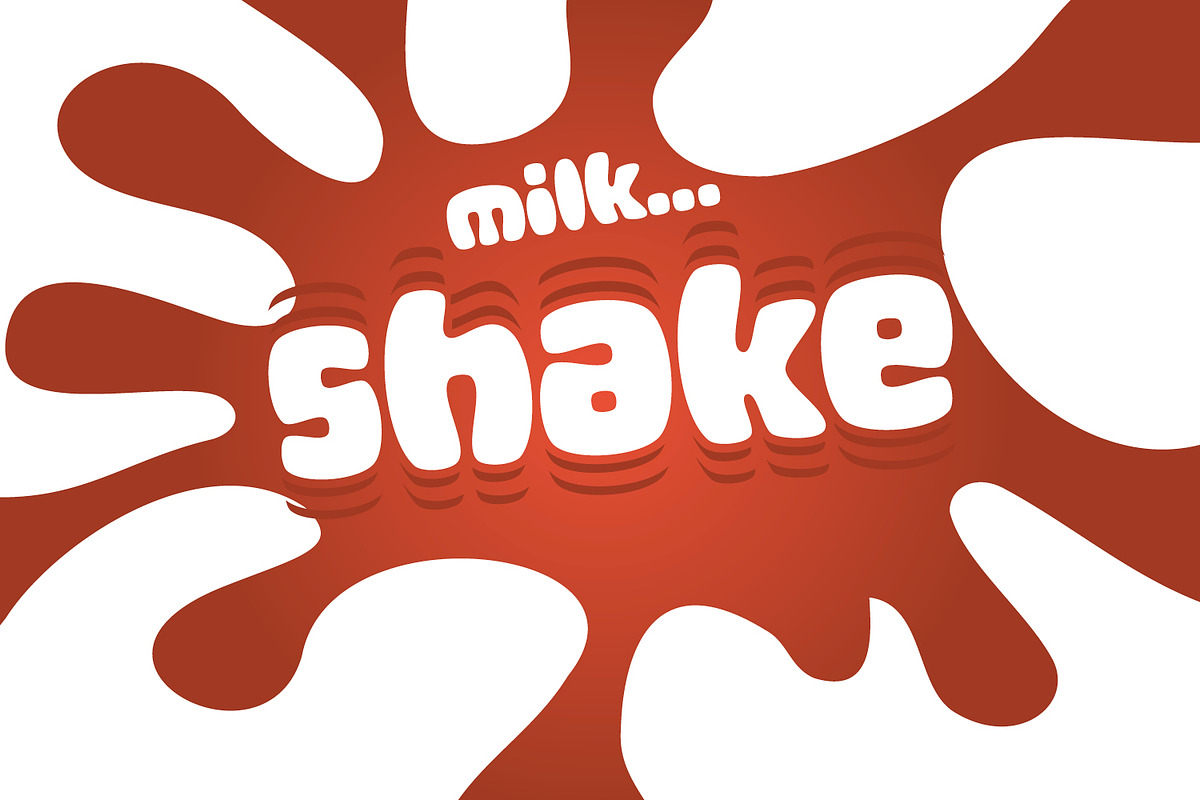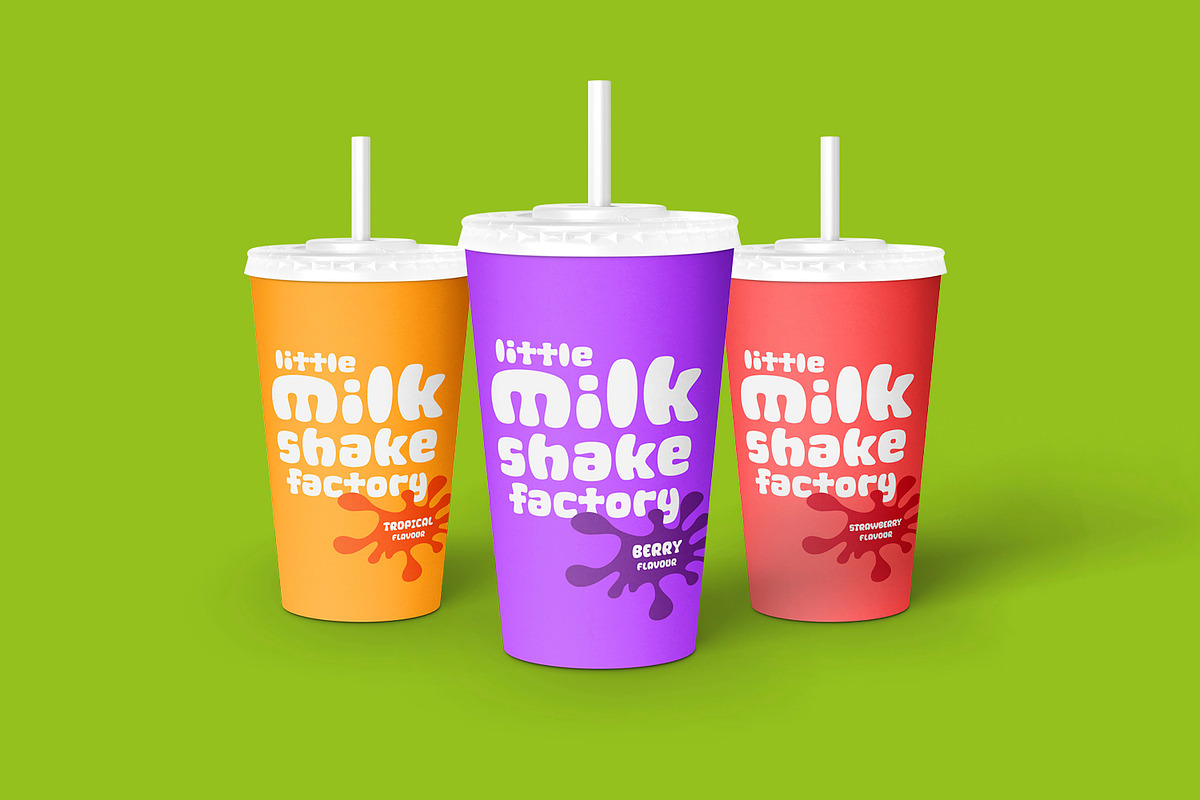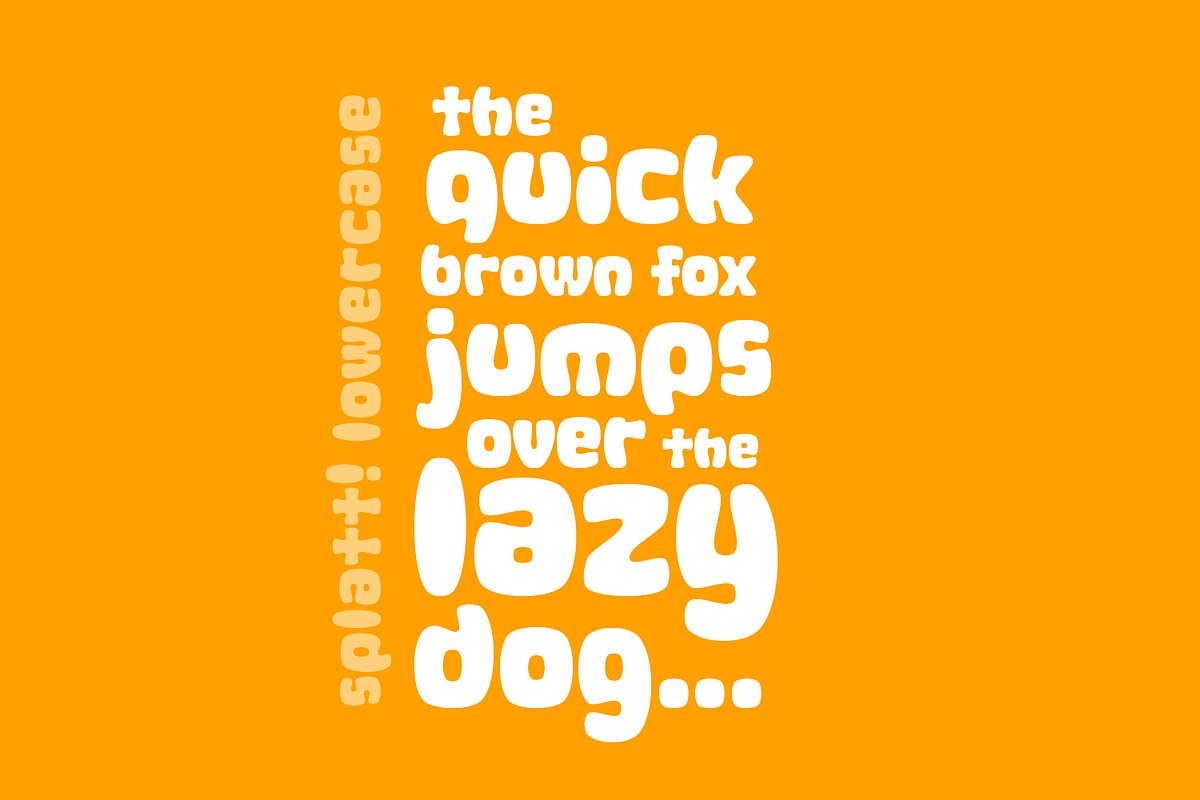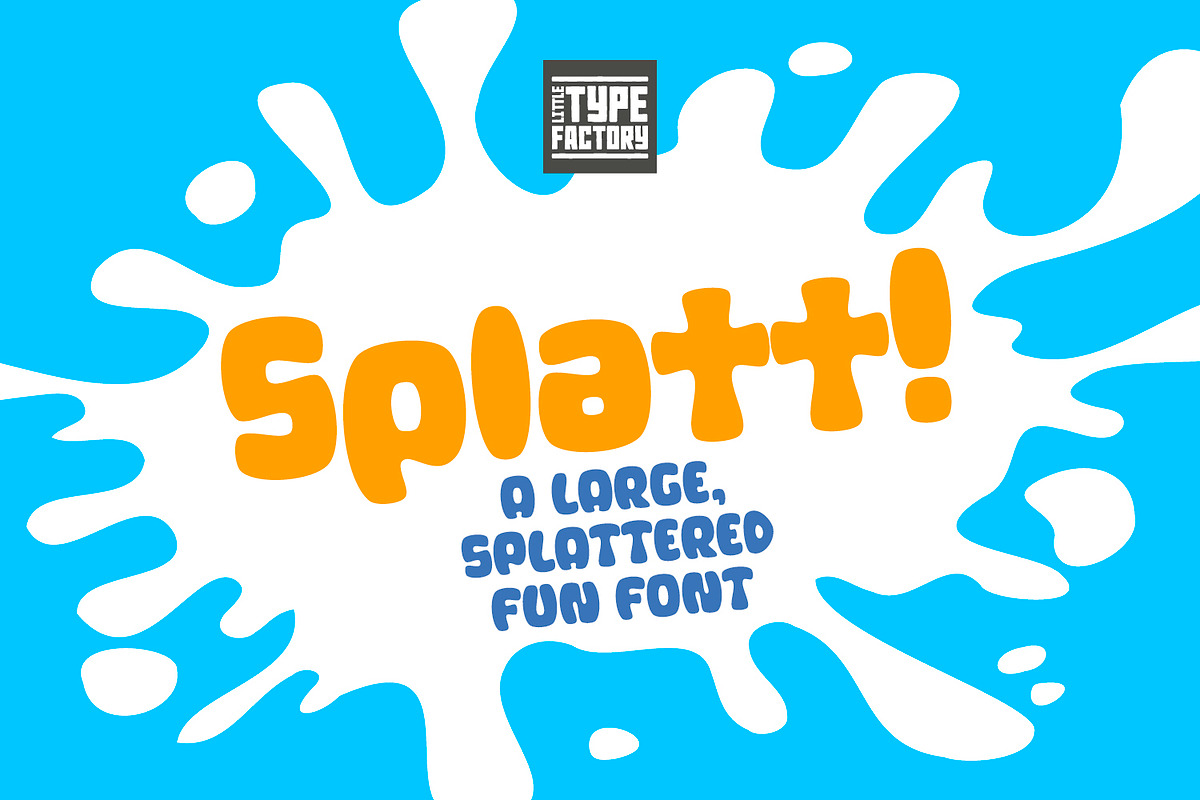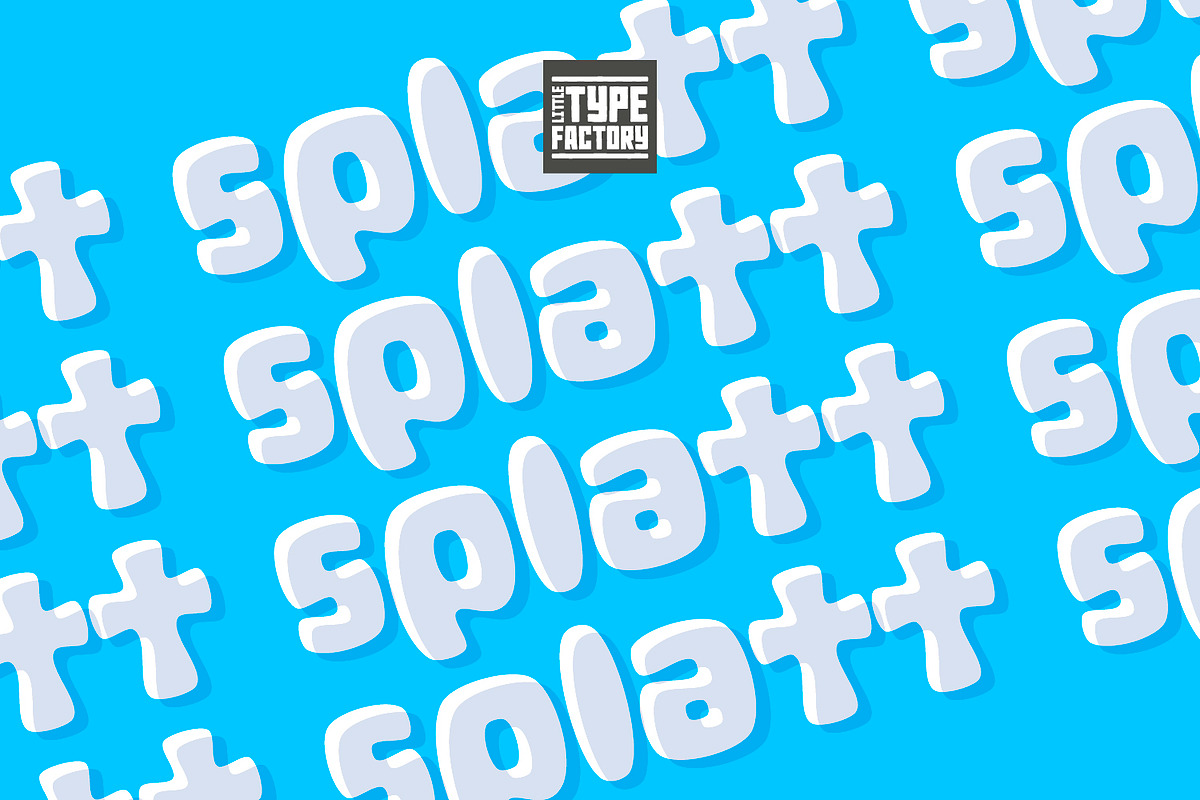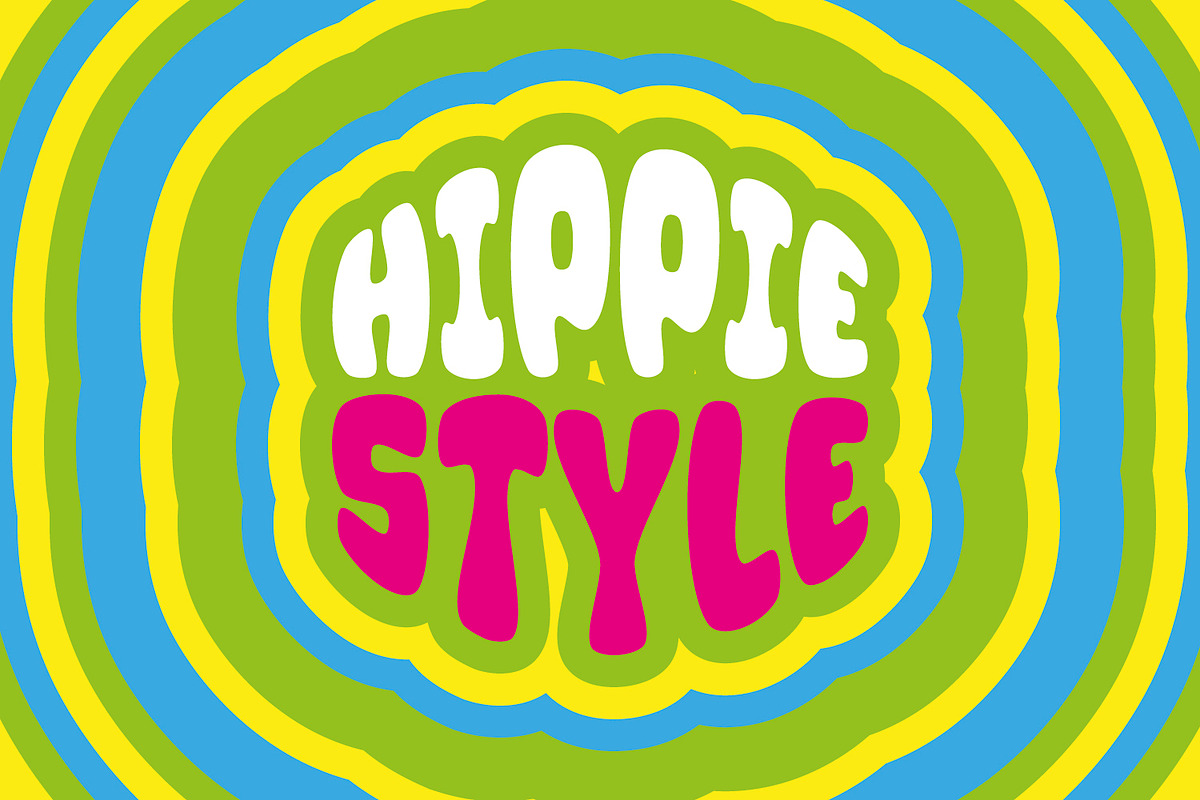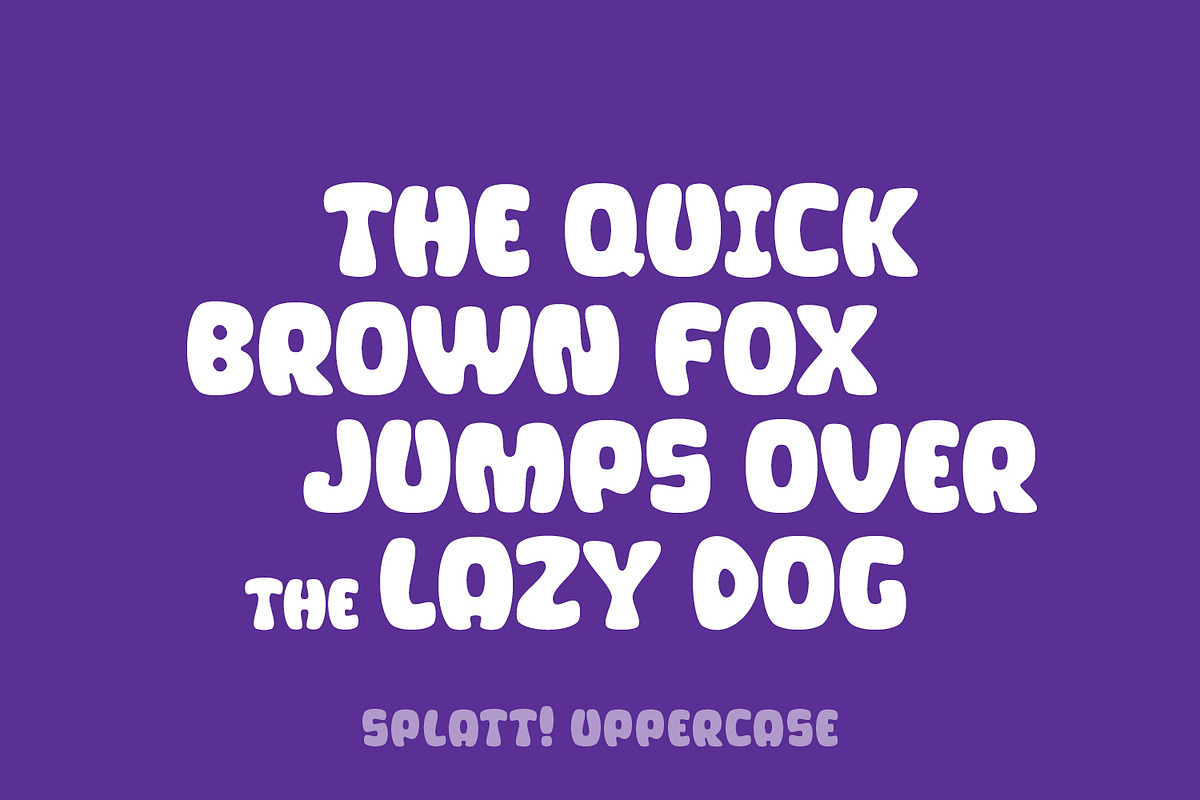
Splatt! a fat, splattered fun font
A large splattered, playful and fun font. Add something a little unique to your designs. For branding, products, merchandise, crafting, logos, editorial and much, much more. Great for making an impact!
Full uppercase, lowercase and special characters including full European glyph set.